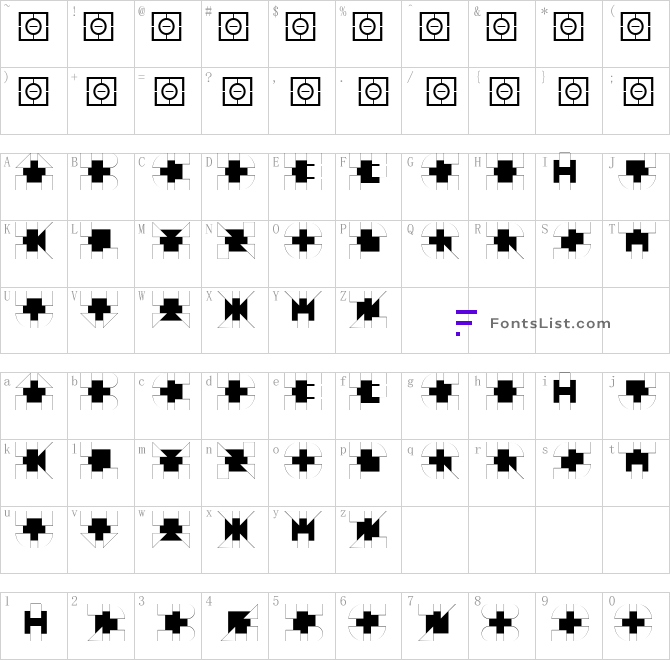
- Font Name:AlphaGeometrique
AlphaGeometrique.ttf is a very beautiful artistic font, AlphaGeometrique.ttf is widely used in the design and printing of various books and pictures,AlphaGeometrique.ttf has a strong visual impact,AlphaGeometrique.ttf is a commonly used font in newspapers, magazines and books, and is used in posters, e-commerce Poster design, store design, logo design, font design and other fields.AlphaGeometrique.